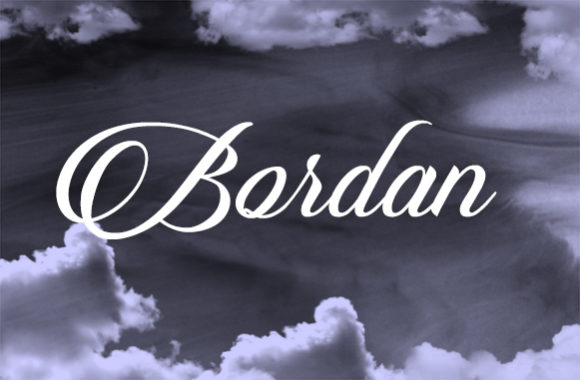
The Victory Font
About The Victory Font
The Victory is an amazing typeface. It’s uppercase’s have beautiful swashes which will give your design an upscale and chic look.